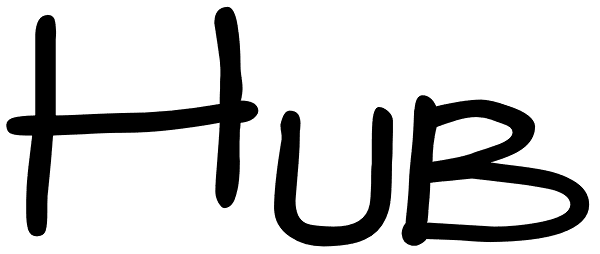
Hub
Designed by Gennady Fridman and released by ParaType in 2008. Hub represents so called block letter handwriting style, which becomes more and more usual and nowadays replaces traditional cursive handwriting. One of the reasons for these changes is...